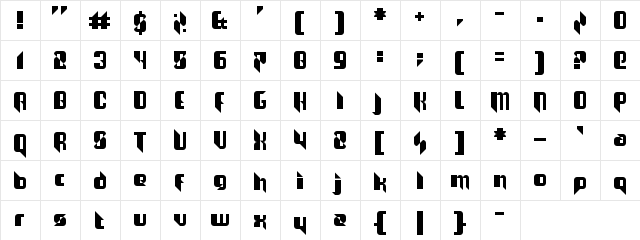
The Joy Facade Regular
| Designer | NAL |
Design Context for The Joy Facade Typeface
The Joy Facade is a composed and adaptable typeface that performs quietly and consistently across a wide range of design contexts.